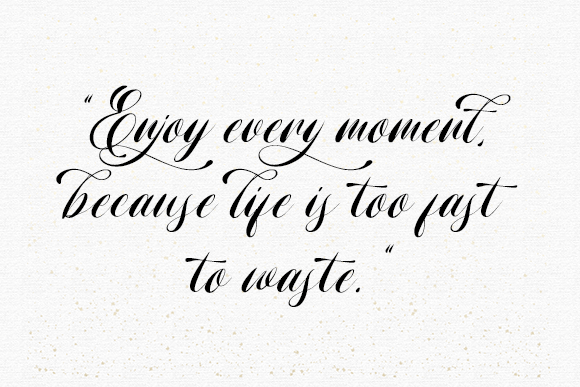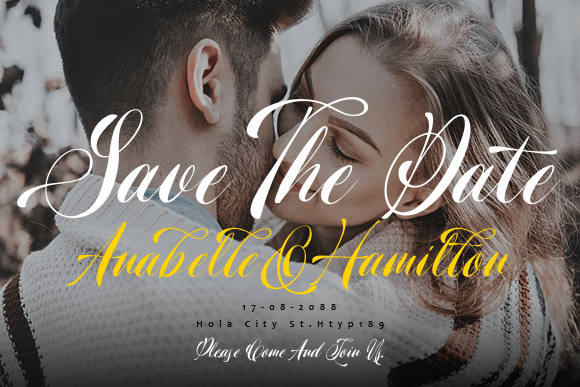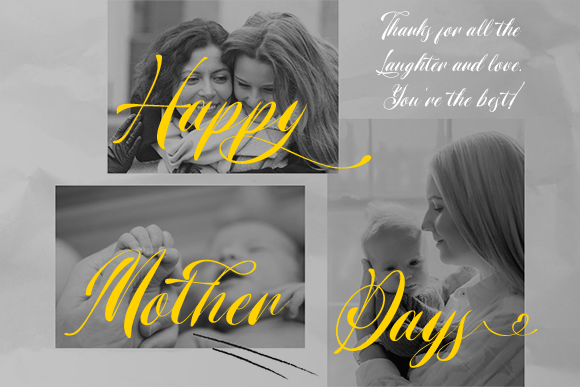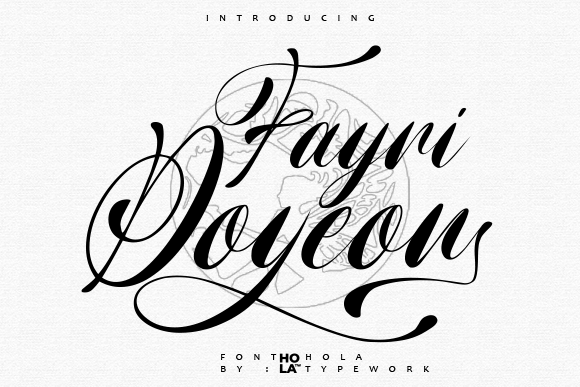
Introducing Fayri Doyeon, an artfully crafted, handwritten font that exudes a distinctly original, messy brush style.
Brimming with character and charm, Fayri Doyeon seamlessly harmonizes with a vast array of applications – be it cutting-edge design projects, fashion-forward magazines, dynamic branding, eye-catching ads, romantic wedding invitations or trendsetting T-shirt designs Its versatility also shines across various social media platforms, effortlessly enhancing online content with an undeniably expressive aesthetic.